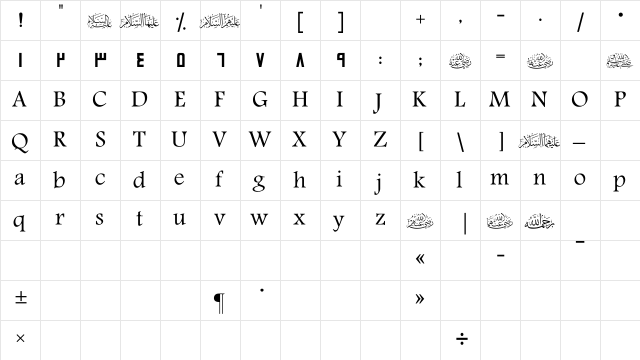
SC_SHARJAH REGULAR
Design Context for SC_SHARJAH Typeface
SC_SHARJAH takes a measured approach to typography — its balanced proportions and neutral character make it a reliable workhorse for both digital and print work.
Pro Tip: Use SC_SHARJAH in both headline and body roles to test its range before committing to a single application.